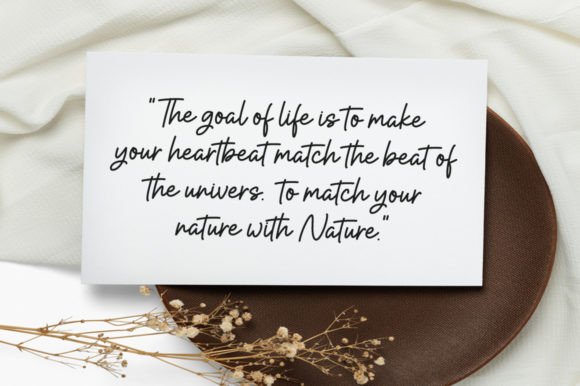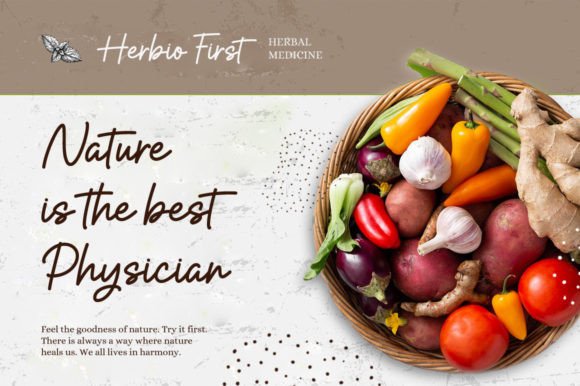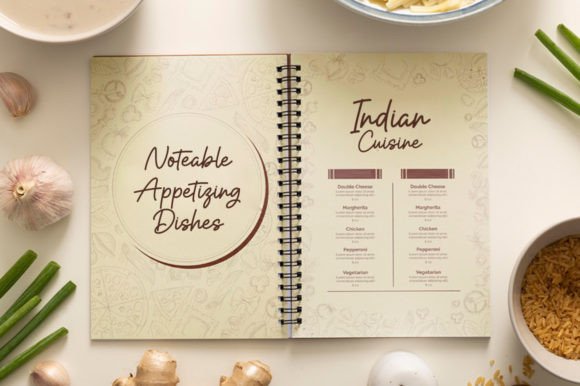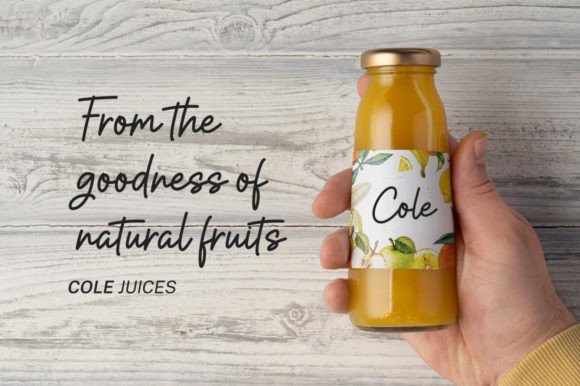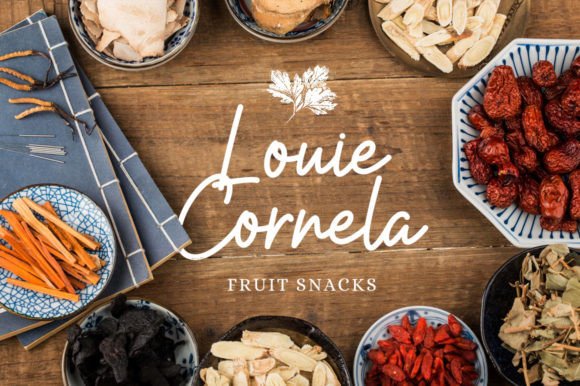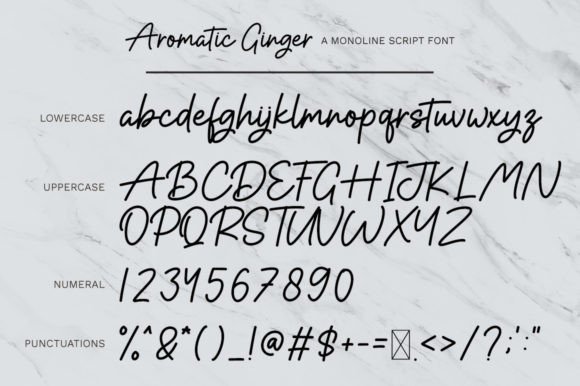
Aromatic Ginger Font: Elevate Your Designs with Elegance and Sophistication
In the realm of typography, few fonts manage to capture the essence of elegance and sophistication as beautifully as the Aromatic Ginger Font. This stunning script font is a masterpiece of design, boasting smooth curves and a well-balanced structure that makes it perfect for fashion branding, editorial designs, and a myriad of other creative projects. In this article, we’ll delve into the world of Aromatic Ginger Font, exploring its features, uses, and the magic it brings to the table for designers and crafters alike.
The Essence of Aromatic Ginger Font
Aromatic Ginger Font is characterized by its fluid, graceful lines that dance across the page with an air of sophistication. Its design is rooted in the principles of classic script typography, yet it carries a modern twist that sets it apart from more traditional fonts. This beautiful script font is not just a tool for conveying information; it’s an artistic statement that can elevate any design project to new heights of elegance and style.
Key Features of Aromatic Ginger Font
- Smooth Curves: The defining feature of Aromatic Ginger Font is its smooth, flowing curves. These curves give the font its graceful and elegant appearance, making it a joy to behold and a pleasure to use in designs.
- Well-Balanced: Balance is key to the aesthetic appeal of any font, and Aromatic Ginger Font excels in this area. Its well-balanced design ensures that words and sentences flow harmoniously, creating a visually pleasing text that draws the reader in.
- Versatility: While Aromatic Ginger Font leans towards the elegant side, it’s surprisingly versatile. It can be used in a variety of design contexts, from high-end fashion branding to editorial content, and even in digital media.
Applications of Aromatic Ginger Font
The applications of Aromatic Ginger Font are vast and varied, limited only by the imagination of the designer. Here are a few ideas to get you started:
- Fashion Branding: Use Aromatic Ginger Font to create stunning logos, business cards, and marketing materials that exude elegance and sophistication.
- Editorial Designs: Add a touch of class to your editorial designs, whether it’s for a magazine, a blog, or a book. Aromatic Ginger Font is perfect for headings, titles, and quotes.
- Digital Media: Don’t limit Aromatic Ginger Font to print. Its beauty shines through on digital screens as well, making it ideal for website headers, social media graphics, and more.
Tips for Using Aromatic Ginger Font
To make the most of Aromatic Ginger Font, consider the following tips:
- Pair it Wisely: Aromatic Ginger Font pairs beautifully with clean, sans-serif fonts for body text. Experiment with different combinations to find the perfect match for your design.
- Play with Sizes: Use Aromatic Ginger Font in various sizes to create visual hierarchy in your designs. Larger sizes can make for impactful headings, while smaller sizes can add a touch of elegance to body text.
- Experiment with Colors: While Aromatic Ginger Font looks stunning in classic black and white, don’t be afraid to experiment with colors. Metallic colors, pastels, and rich jewel tones can add an extra layer of sophistication to your designs.
Aromatic Ginger Font is more than just a script font; it’s a design statement. Its smooth curves, well-balanced structure, and versatile nature make it an invaluable tool for designers and crafters looking to add a touch of elegance and sophistication to their projects. Whether you’re working on fashion branding, editorial designs, or digital media, Aromatic Ginger Font is sure to elevate your work to new heights of style and sophistication.
So, why settle for ordinary when you can create something extraordinary with Aromatic Ginger Font? Dive into the world of elegant typography and discover the difference this beautiful script font can make in your designs.